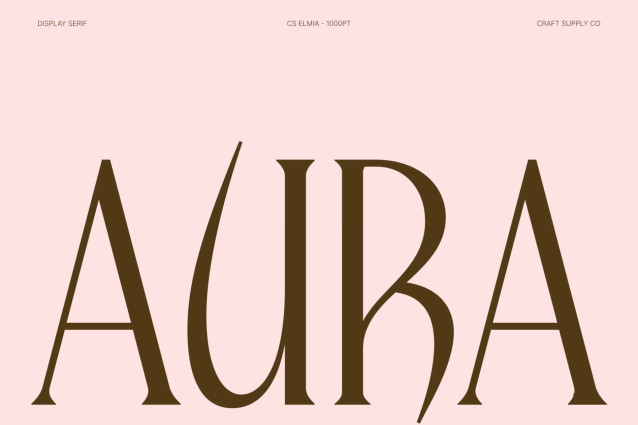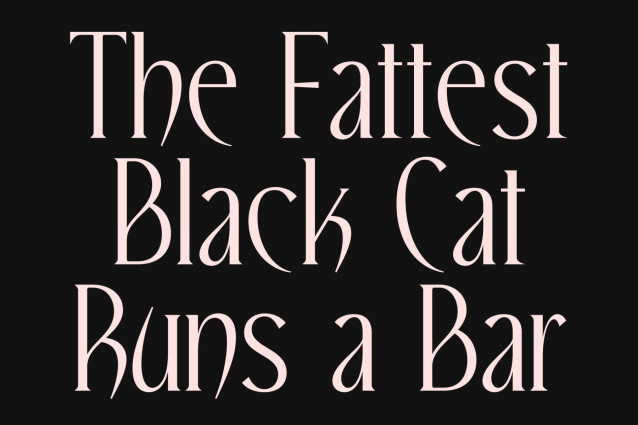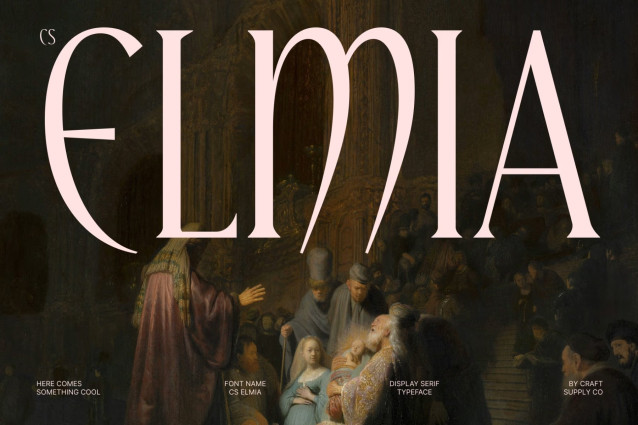
CS Elmia – Modern Serif Font
CS Elmia – Modern Serif Font: Where Editorial Sophistication Meets Timeless Luxury
Tall Proportions and Refined Serif Details
This is a modern serif font designed to embody luxury, sophistication, and timeless beauty. Featuring high-contrast strokes, tall proportions, and sharp elegant serifs, it creates a striking visual presence that feels both graceful and authoritative. Its refined construction enhances readability while delivering the polished aesthetic expected from premium typography.
Feminine Sophistication with Editorial Appeal
This font exudes a sense of femininity and elegance. The delicate balance between dramatic contrast and slender proportions creates a graceful rhythm across every character, making the font ideal for designs that seek to communicate exclusivity, beauty, and modern refinement. Its sophisticated personality feels equally at home in contemporary fashion campaigns and classic luxury branding.